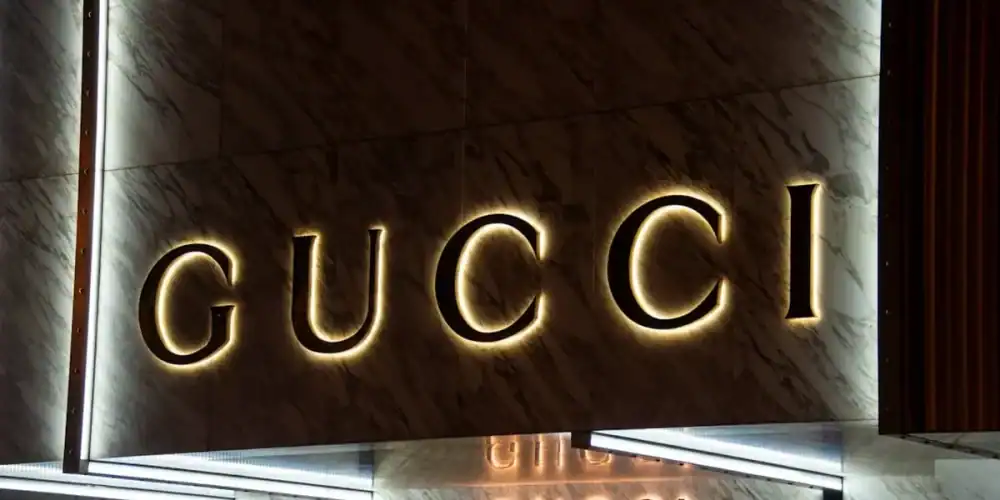
Switching to a serif typeface can instantly elevate your brand’s perceived value and credibility by tapping into centuries of visual conditioning. If you are a founder or brand manager in a trust-heavy industry like finance, law, or high-end consultancy, ignoring this shift back to tradition might cost you customer confidence. We are witnessing a massive pendulum swing away from the sterile “blanding” of tech startups, where serif font psychology is now the primary weapon for establishing authority. This article explores how modern serif fonts are reshaping corporate branding typography to build immediate rapport and why specific styles like the Baskerville font are the secret to looking established before you even launch.
- Psychological Impact: Why our brains interpret “feet” on letters as a sign of stability and reliability.
- The “Blanding” Revolt: How brands are ditching generic sans-serifs to reclaim personality and humanity.
- The Baskerville Effect: Deep dive into why transitional serif typefaces strike the perfect balance between intellect and approachability.
- Actionable Strategy: How to implement trustworthy fonts without looking like a dusty relic from the 19th century.
The Psychology of Authority: Why Serifs Work
I have watched countless startups launch with identical, geometric sans-serif logos, only to struggle with differentiation. The rush to look “modern” stripped away the visual cues that signal competence. Serif font psychology is rooted in history; these typefaces have been used in academia, legal documents, and literary works for centuries. When a customer sees a serif font, their subconscious immediately tags the brand as “established.”
Research from Wichita State University supports this, indicating that serif fonts like Garamond or Times New Roman naturally convey respectability. It is not just about aesthetics; it is a transfer of trust. When you use a serif, you borrow the authority of the institutions that have used them for decades. In my analysis of recent rebranding efforts, companies returning to serifs see a measurable uptick in positive consumer perception, often described as feeling more “premium” or “honest.”
This doesn’t mean you should just slap Times New Roman on your website. The goal is to leverage the feeling of tradition—stability, structure, and heritage—while presenting a fresh face. The distinctive “feet” and varying stroke widths of serif characters act as visual anchors, grounding the text and, by extension, the brand itself.
Modern Serif Fonts: The Antidote to “Tech Coldness”
For a long time, the design world was obsessed with minimalism. Every tech giant from Google to Spotify flattened their logos into friendly but indistinct sans-serifs. Now, the market is saturated with sameness. Modern serif fonts have emerged as the solution to this “tech coldness.”
Brands like Notion and Mailchimp have successfully integrated serifs to signal maturity and warmth. They realized that a purely digital, geometric look feels robotic. By introducing serifs, they injected a human element back into their corporate branding typography.
This new wave of serifs is not your grandfather’s typography. These fonts are sharper, with higher contrast and cleaner lines designed specifically for screens. They retain the “intellectual” vibe of traditional print but render beautifully on a mobile display.
- Editorial Vibe: They make marketing copy feel like a high-quality magazine rather than a software manual.
- Emotional Connection: They soften the brand voice, making “authoritative” feel “approachable” rather than “dictatorial.”
- differentiation: In a sea of Helvetica clones, a sharp serif stands out as a bold declaration of character.
The Baskerville Standard and Transitional Serifs
If you want to understand the peak of trustworthy fonts, you have to look at Baskerville font. It is classified as a transitional serif, sitting comfortably between the old-style diagonals of the Renaissance and the severe vertical contrast of modern typefaces like Didot.
I often recommend transitional serifs because they are the “Goldilocks” of typography. They possess the authority of the past but the crispness of the present. Baskerville, in particular, is frequently cited in psychological studies as the most “believable” font. It commands respect without shouting.
Why does this matter for your brand? Using a transitional serif suggests that you are stable but forward-thinking. It implies you have history (even if you started yesterday) but aren’t stuck in it.
- Credibility: It carries the weight of serious journalism and academic publishing.
- Readability: The distinct letterforms guide the eye, making long-form content easier to digest.
- Prestige: It subtly communicates that the brand values quality and attention to detail.
Strategic Application in Digital Branding
Adopting serifs requires a delicate touch. If you go too heavy or ornate, you risk looking like a museum exhibit. The key is context. Corporate branding typography today is about mixing and matching.
A winning strategy is to pair a character-rich header serif with a clean sans-serif for body text. This combination gives you the headline authority while maintaining the functional utility of modern UI design. For example, finance and legal firms should lean heavily into serifs for their logos and headings to maximize that instant “we know what we are doing” signal.
A: Yes, but sparingly. Serifs are excellent for large headlines or splash screens in apps to set the mood. For dense menus or small interface text, a clean sans-serif is usually better for legibility on small screens.
Q: Why is Baskerville considered a “trustworthy” font?
A: Psychological studies suggest that the balance and structure of Baskerville make statements written in it appear more true. Its association with intellectual and formal publishing conditions readers to accept the content as credible.